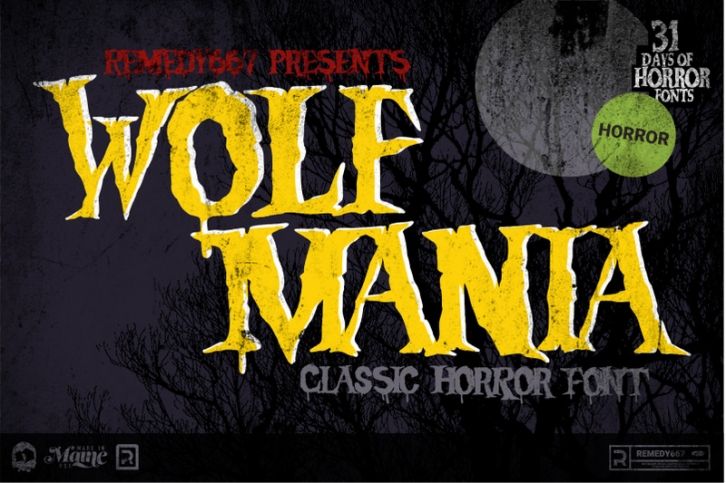
Unleash the beast with Wolf Mania, a new horror-inspired font from Remedy667! Perfect for all your design work, use it to create everything from video games to album covers to horror posters to t-shirts. Terrorize your audience with Wolf Mania, it’s perfect for all your Horror needs.
• Doubles Elimination gives you a more natural look.
• Be a part of the pack!